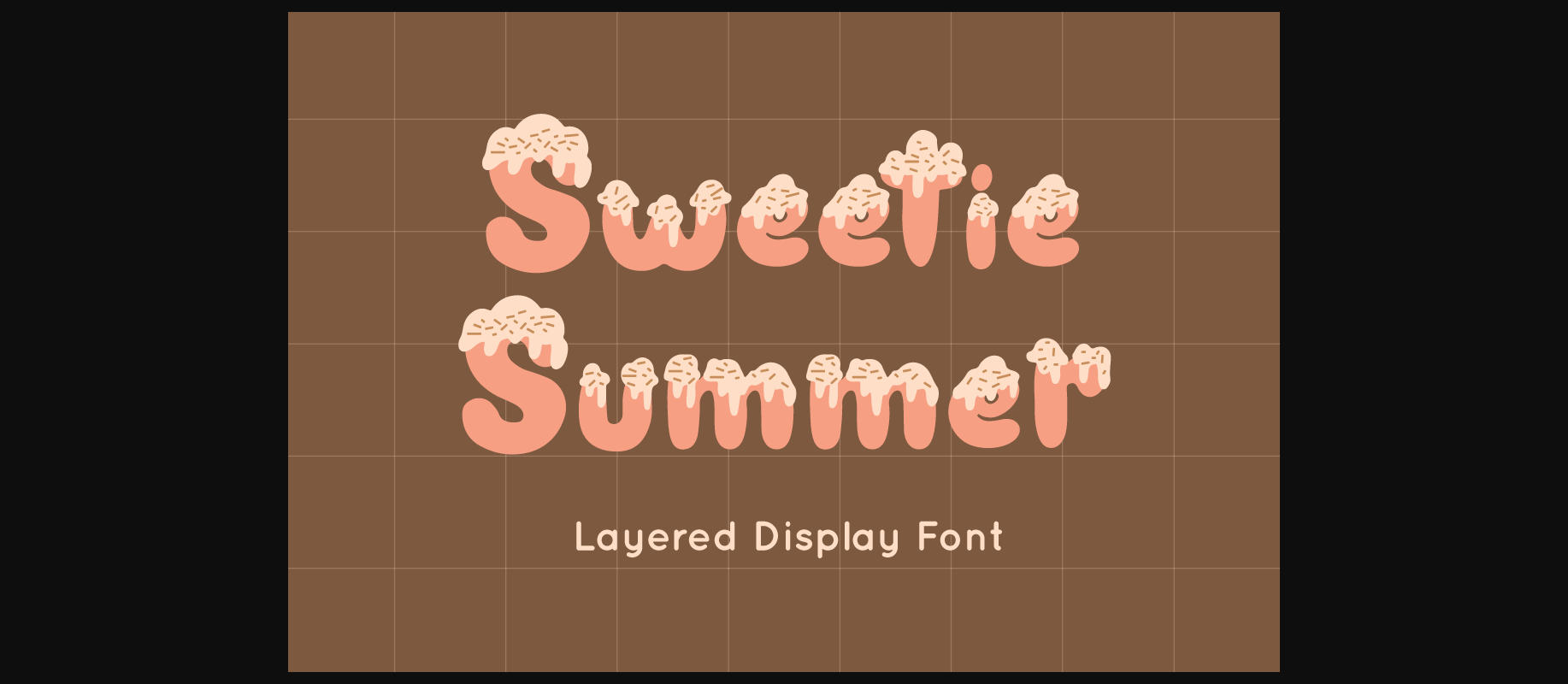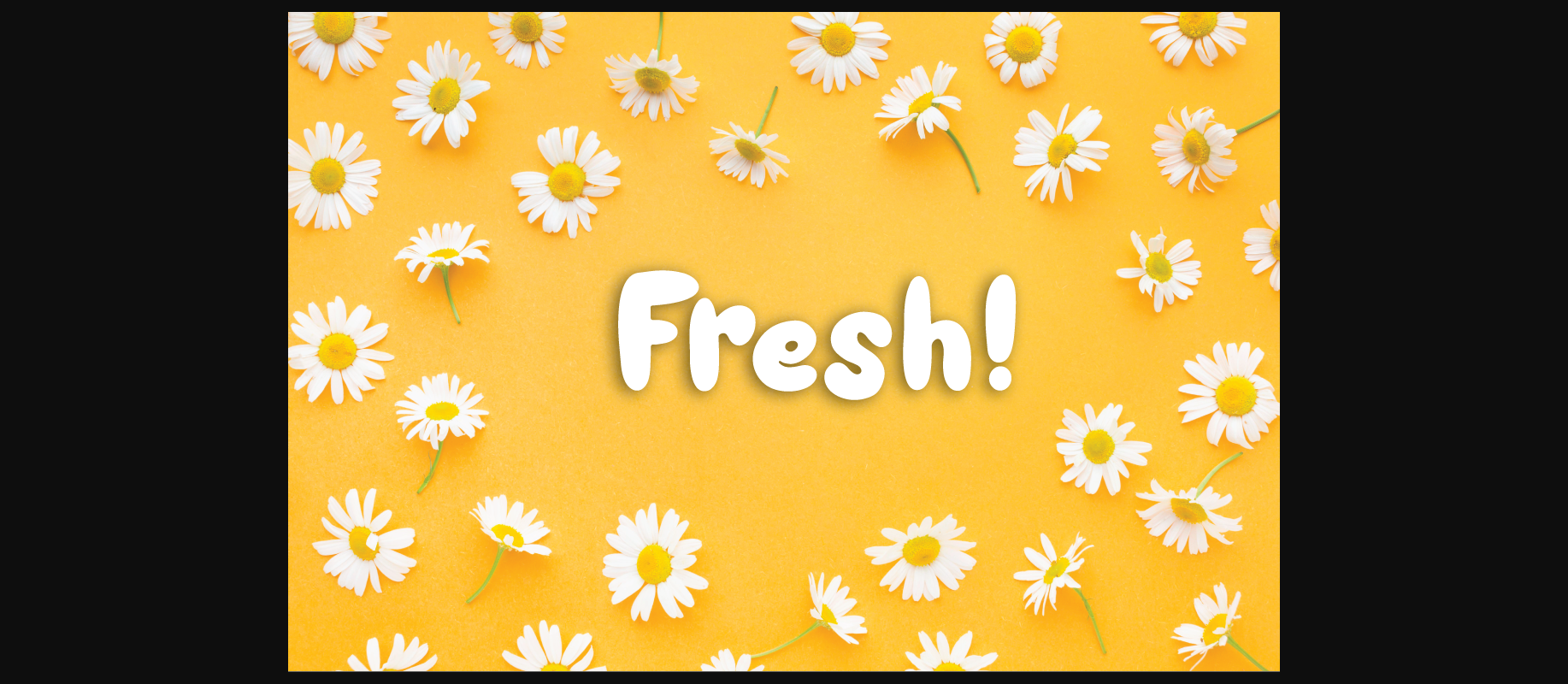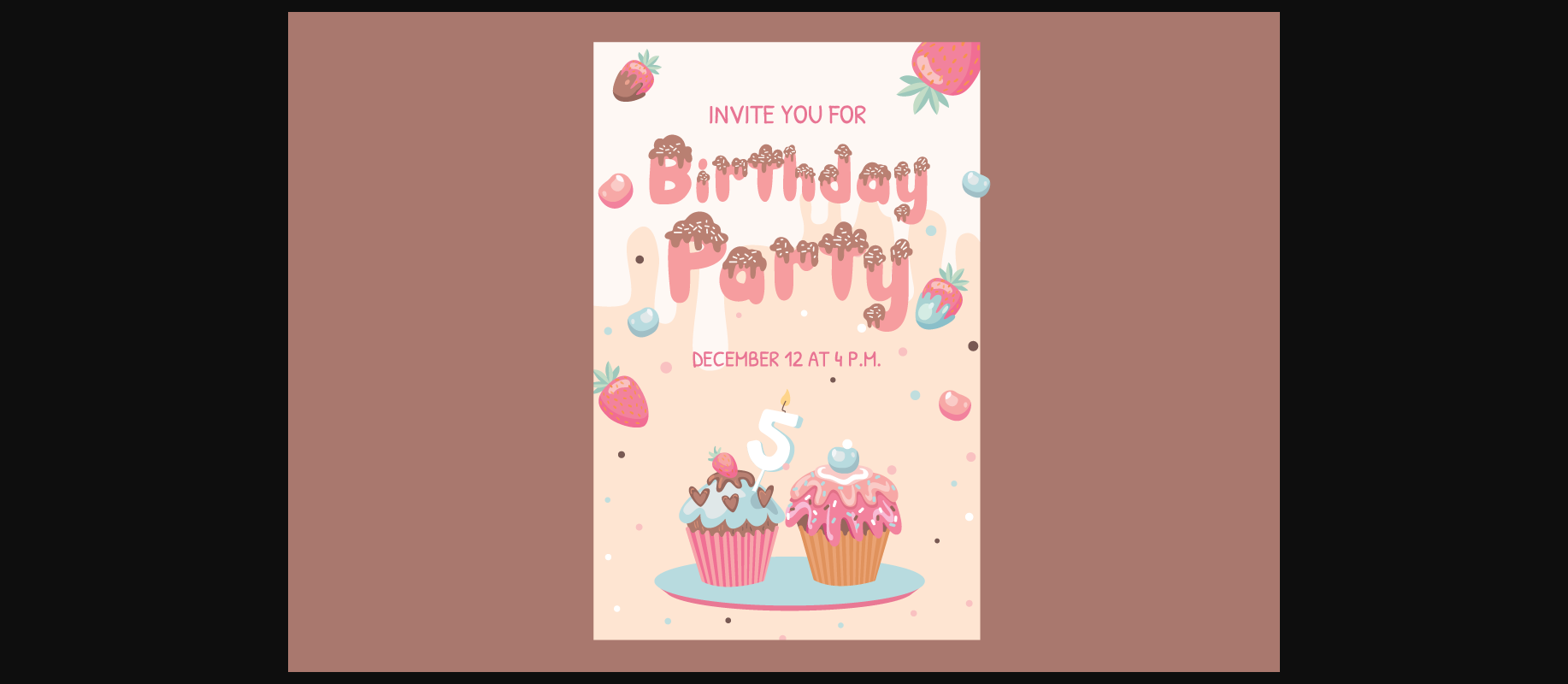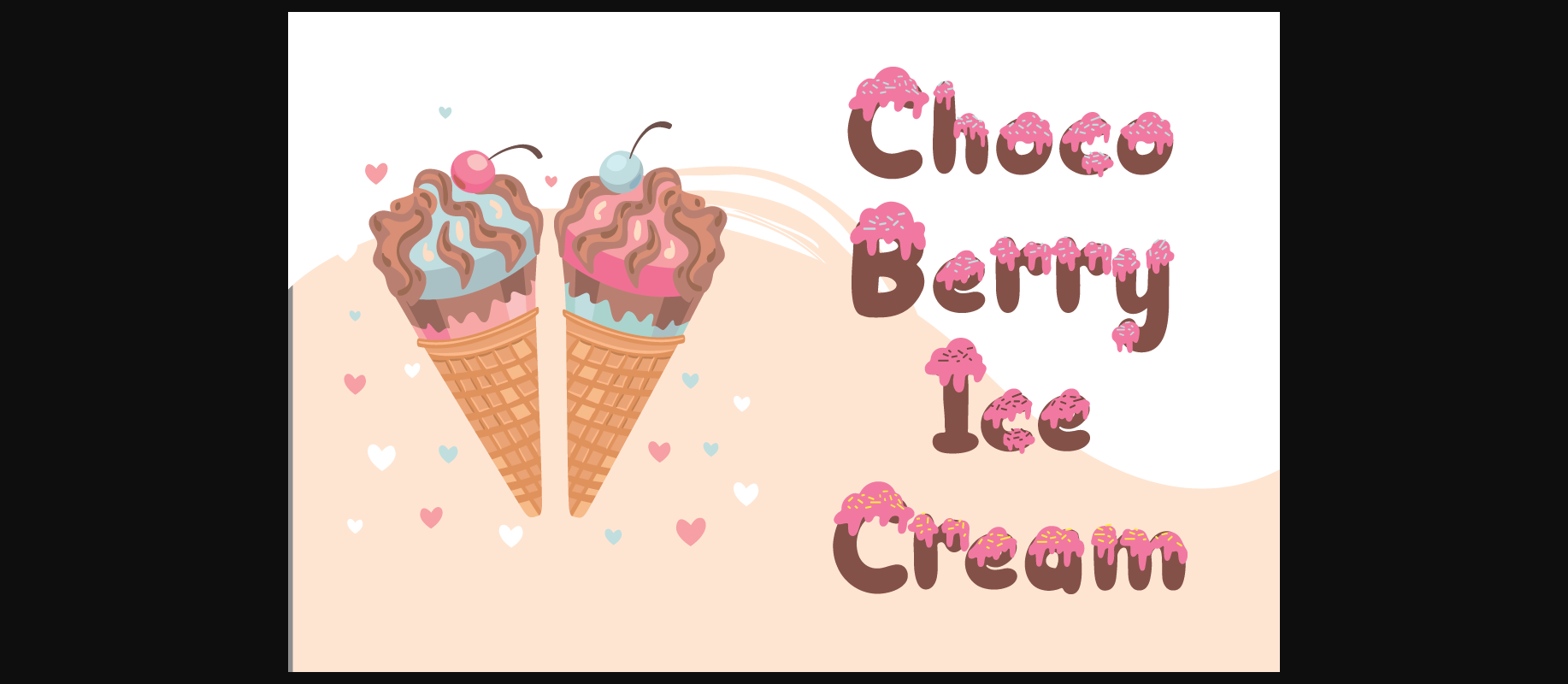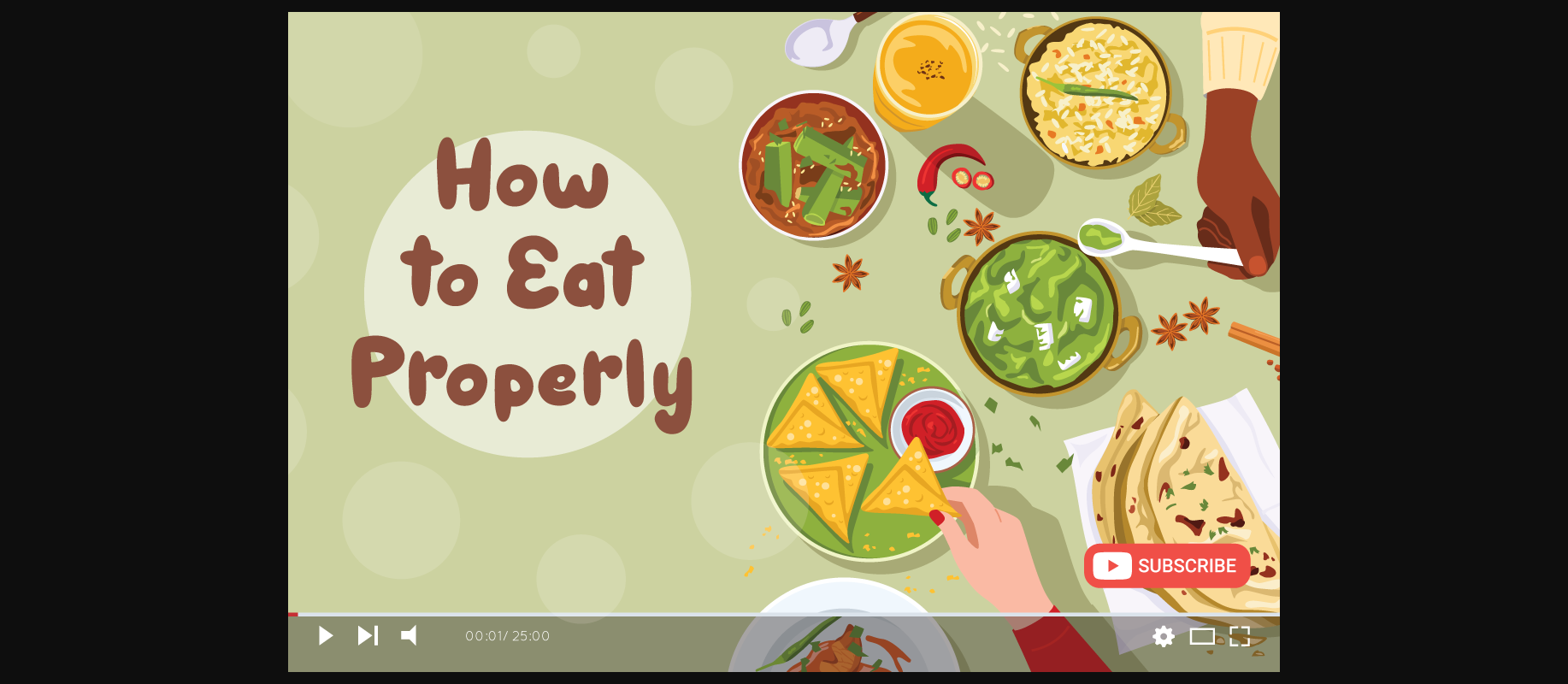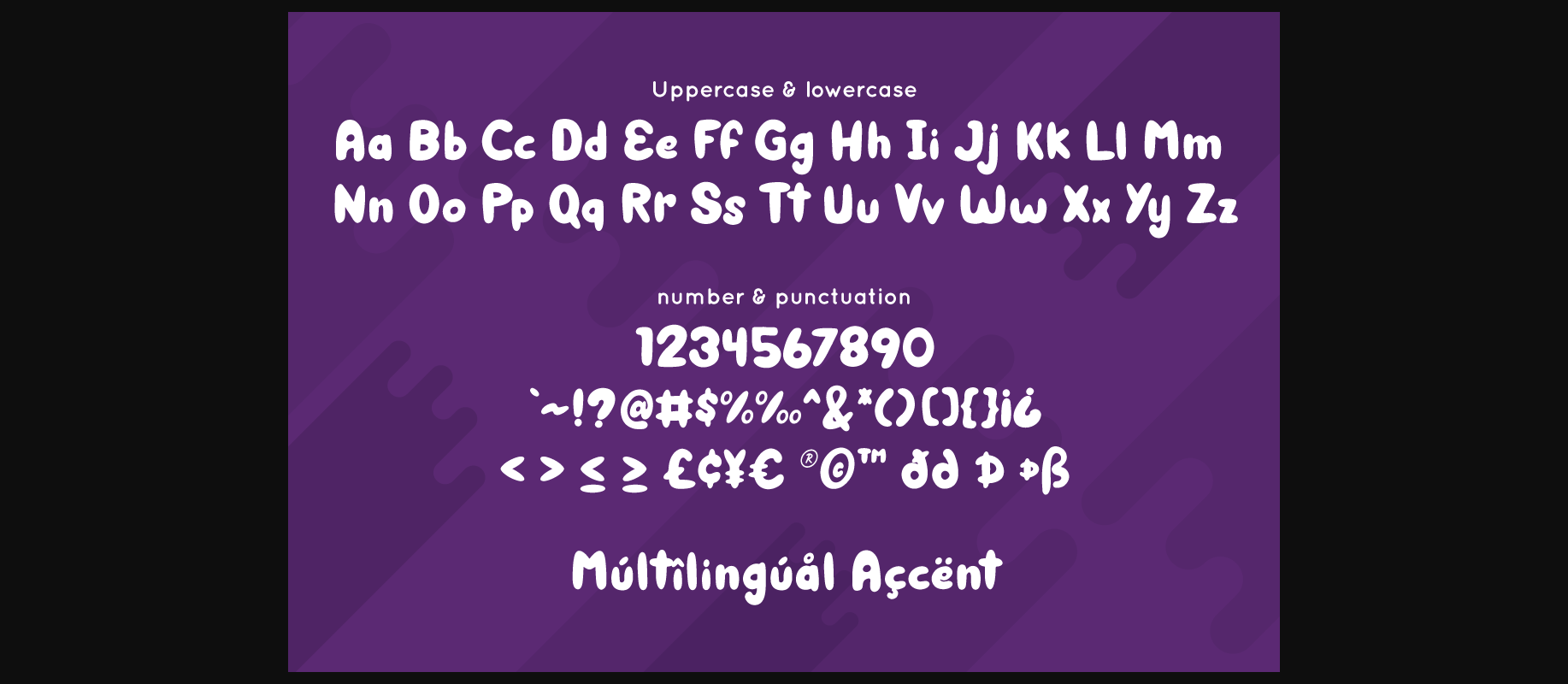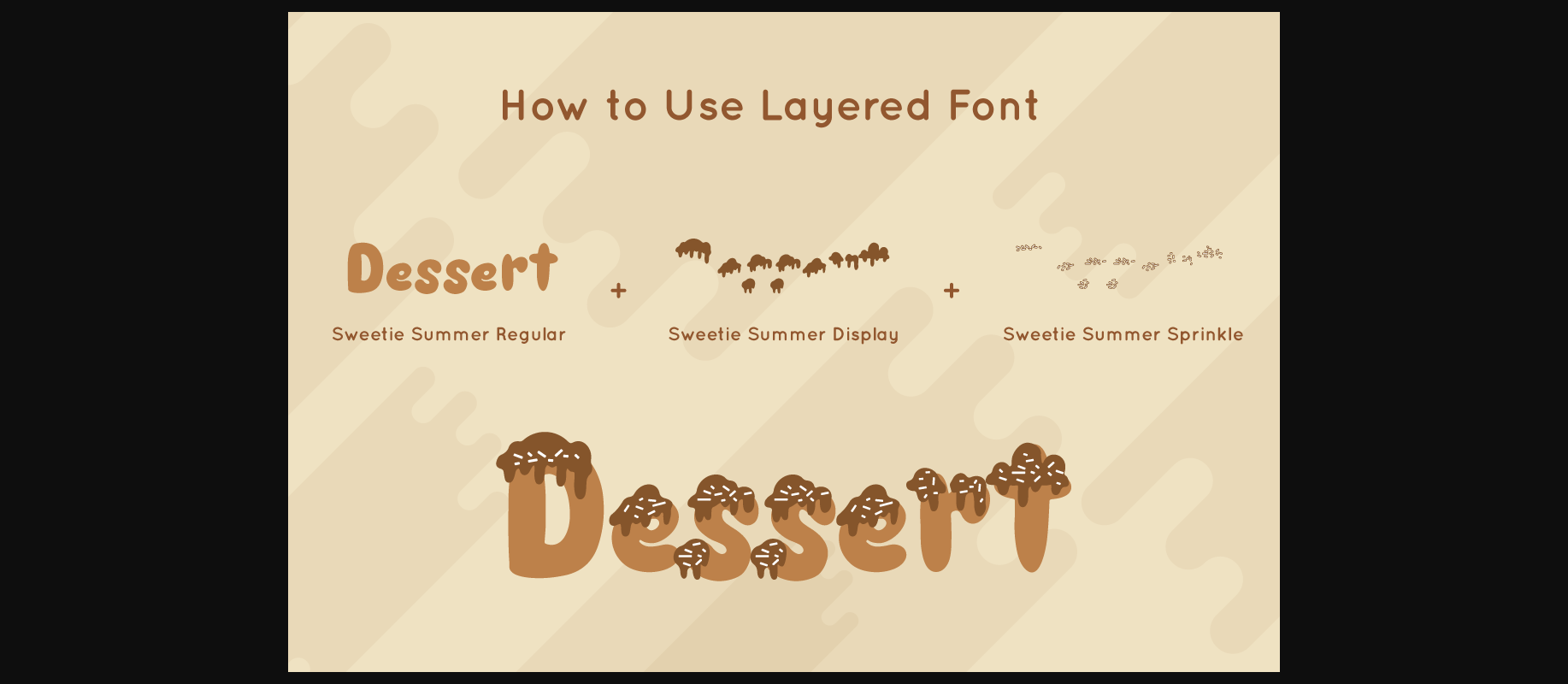
Sweetie Summer Font
About Sweetie Summer Font
Sweetie Summer is a cool and fun decorative font. It embodies playfulness and authenticity and is the perfect choice for any children activity or school project.